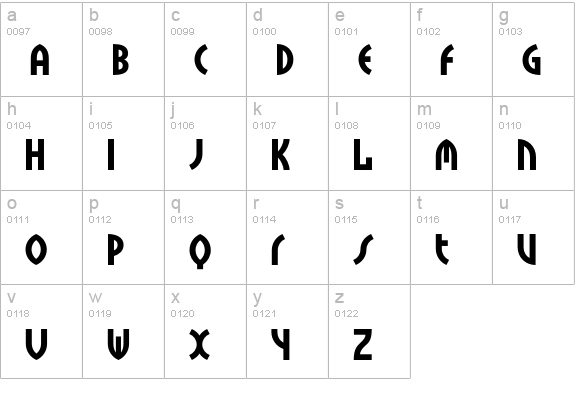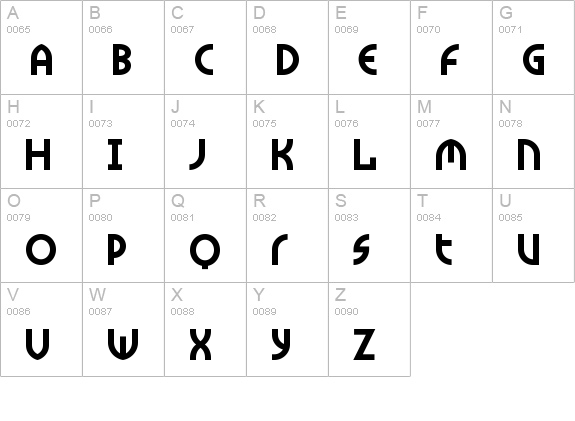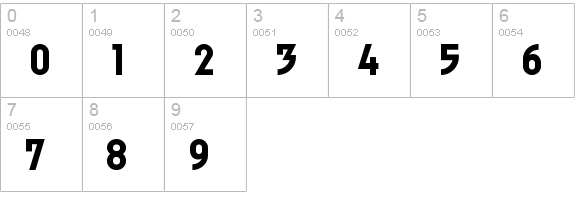
Introducing Tokyo-TwoSolid, a captivating font that effortlessly merges modern simplicity with a touch of urban flair. This font is a perfect choice for those seeking a bold and eye-catching design that is sure to make a lasting impression. Tokyo-TwoSolid boasts a unique combination of sharp edges and fluid curves, resulting in a harmonious balance that is both visually striking and highly legible. With its sleek and contemporary appearance, Tokyo-TwoSolid is ideal for a wide range of design projects, from branding and logos to headlines and posters. Its versatility allows it to seamlessly adapt to various styles and themes, making it an invaluable asset for graphic designers and creatives alike. One of the most appealing aspects of Tokyo-TwoSolid is its availability as a free download on FontsMarket.com. This means that you can easily access and utilize this remarkable font without any financial constraints. Whether you are a professional designer or a hobbyist, the freedom to incorporate Tokyo-TwoSolid into your projects without any cost is a tremendous advantage. The extensive character set of Tokyo-TwoSolid includes uppercase and lowercase letters, numbers, punctuation marks, and various special characters, ensuring that you have all the tools you need to create captivating designs. Additionally, this font supports multiple languages, making it suitable for global audiences and diverse typographic needs. The attention to detail in Tokyo-TwoSolid is evident in its precise letterforms and meticulous spacing, resulting in a polished and refined appearance. Its bold and commanding presence allows it to stand out, ensuring your message is conveyed with impact and clarity. Unlock your creativity and elevate your designs with Tokyo-TwoSolid. Download this exceptional font for free at FontsMarket.com and embark on a typographic journey that will captivate and inspire.